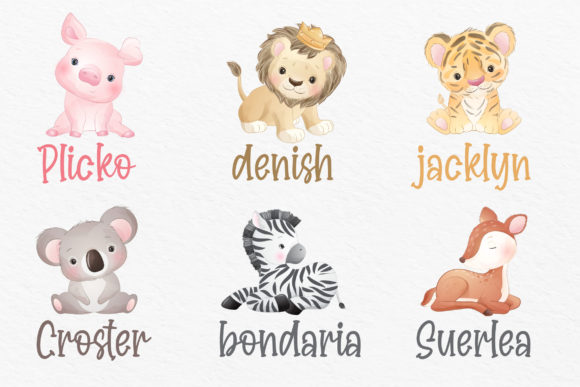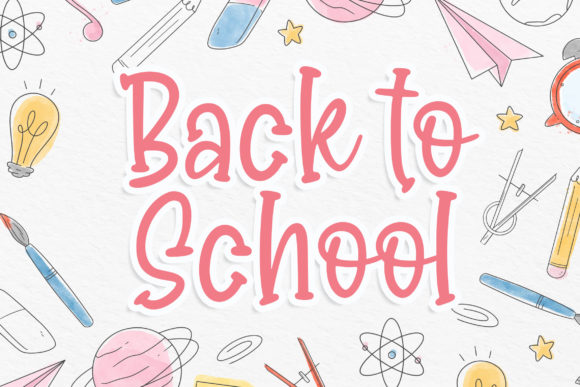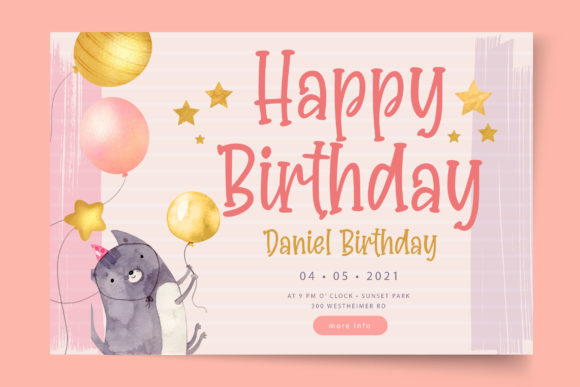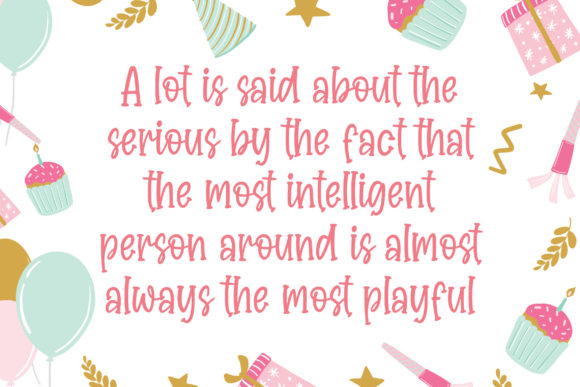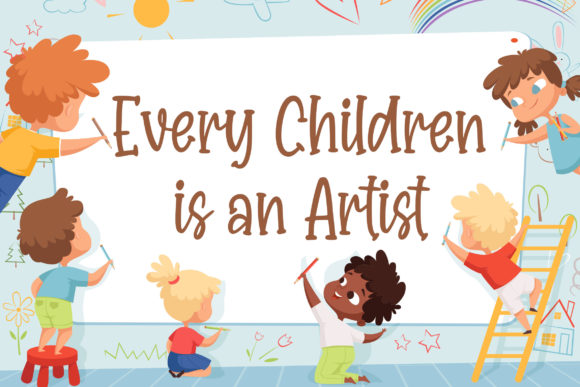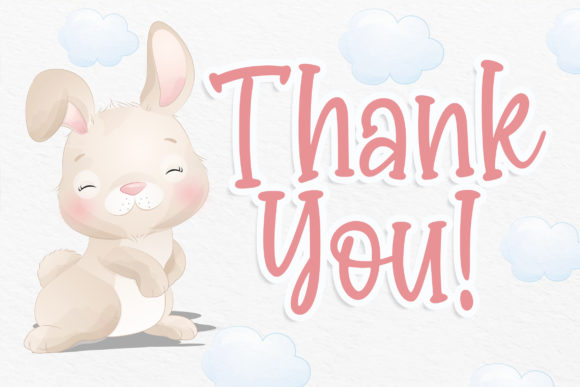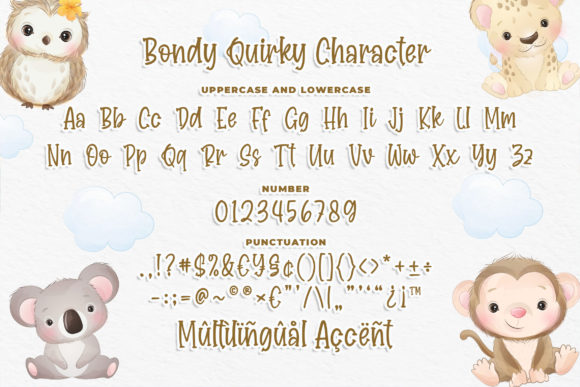
Bondy Quirky Font
“Bondy Quirky” sounds like a delightful and jolly display font that exudes charm and whimsy. With its playful and quirky nature, this font is perfect for adding a touch of brightness and joy to your designs.
By using “Bondy Quirky” in your projects, you can achieve a sense of cheerfulness and lightheartedness. Its display style adds a bold and confident touch, making your creations stand out with a distinct and playful character.
This font’s jolly and charming nature makes it versatile and suitable for various design themes. Whether you’re working on posters, invitations, branding, or any other project, “Bondy Quirky” can effortlessly brighten up the visuals and create a sense of fun and excitement.
With “Bondy Quirky,” you can confidently add a touch of whimsy to your designs, knowing that it will bring a smile to the faces of your audience.
Incorporate “Bondy Quirky” into your designs, and you will love how it brightens up each of your creative projects, making them visually striking and captivating.
While embracing the jolly and quirky vibe of “Bondy Quirky,” remember to maintain readability and legibility. Proper spacing and alignment between letters ensure that the text remains clear and easy to read, preserving the font’s overall charm and playfulness.
In conclusion, “Bondy Quirky” is a jolly and charming display font that can brighten up your designs with a touch of whimsy. Embrace its playful and quirky nature, and let it be the font that adds cheerfulness and joy to your posters, invitations, branding, and other creative projects. With “Bondy Quirky,” your designs will stand out with a bold and confident style, leaving a lasting impression on your audience and making them truly delightful and memorable.